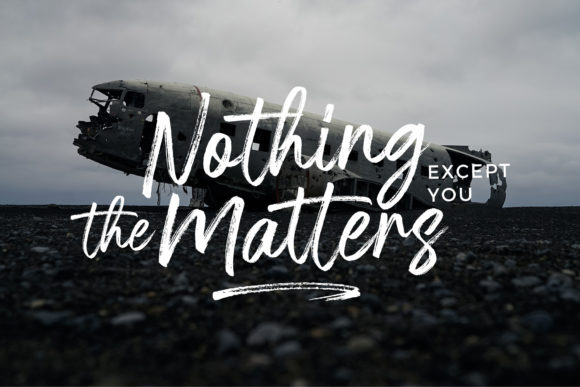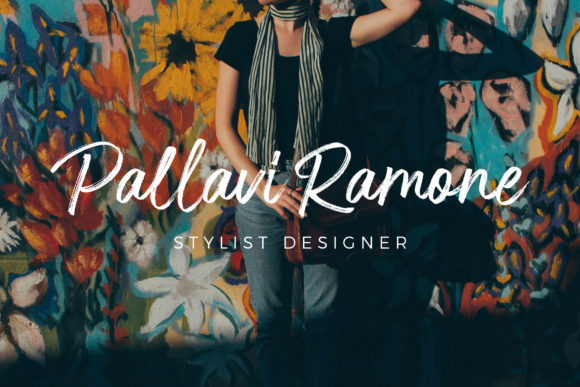
Nervous Font
db-ku.com - Script & Handwritten -- Nervous is a handwritten brush font with a bold twist. It will add an authentic spark to any creative project!